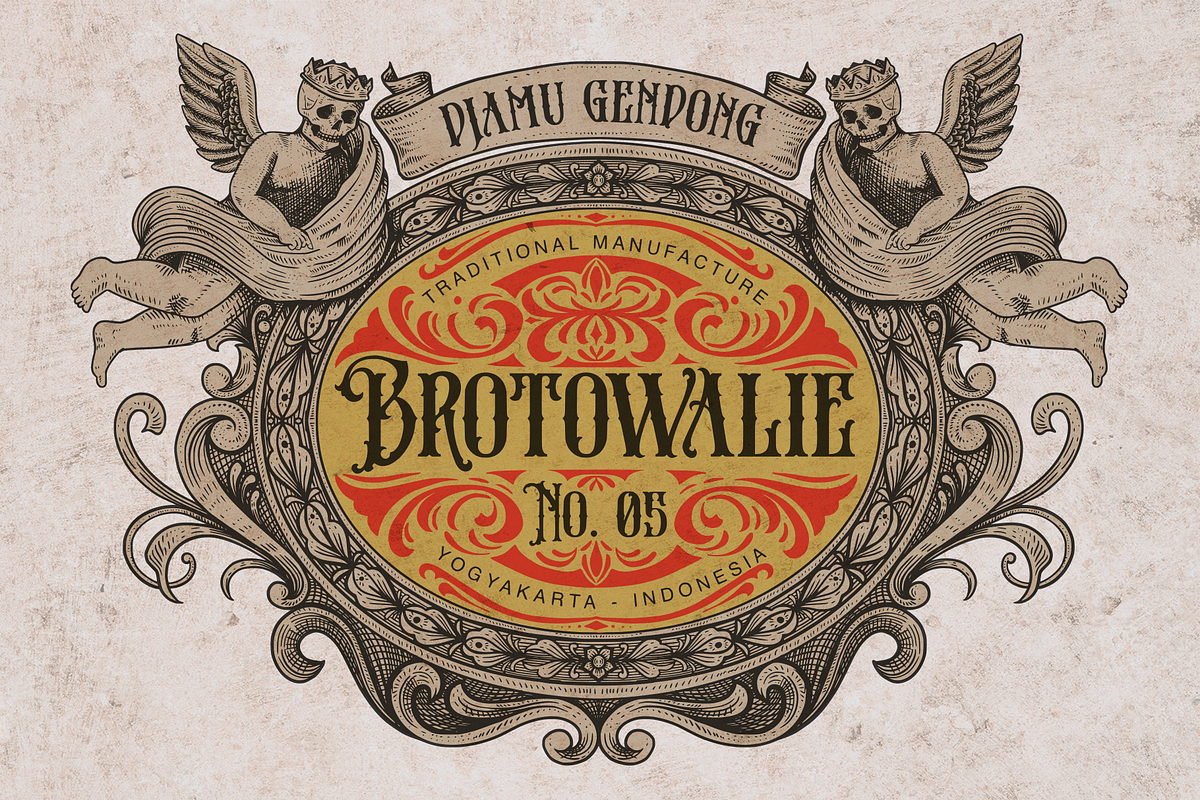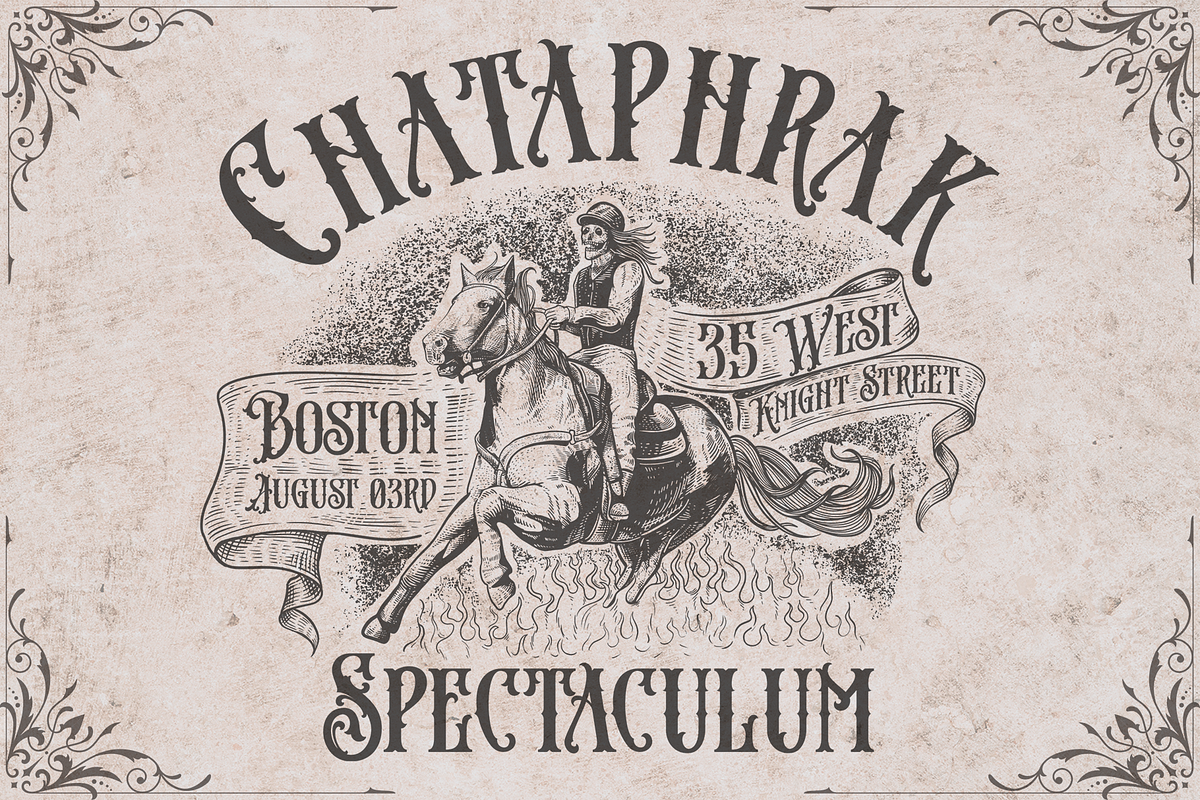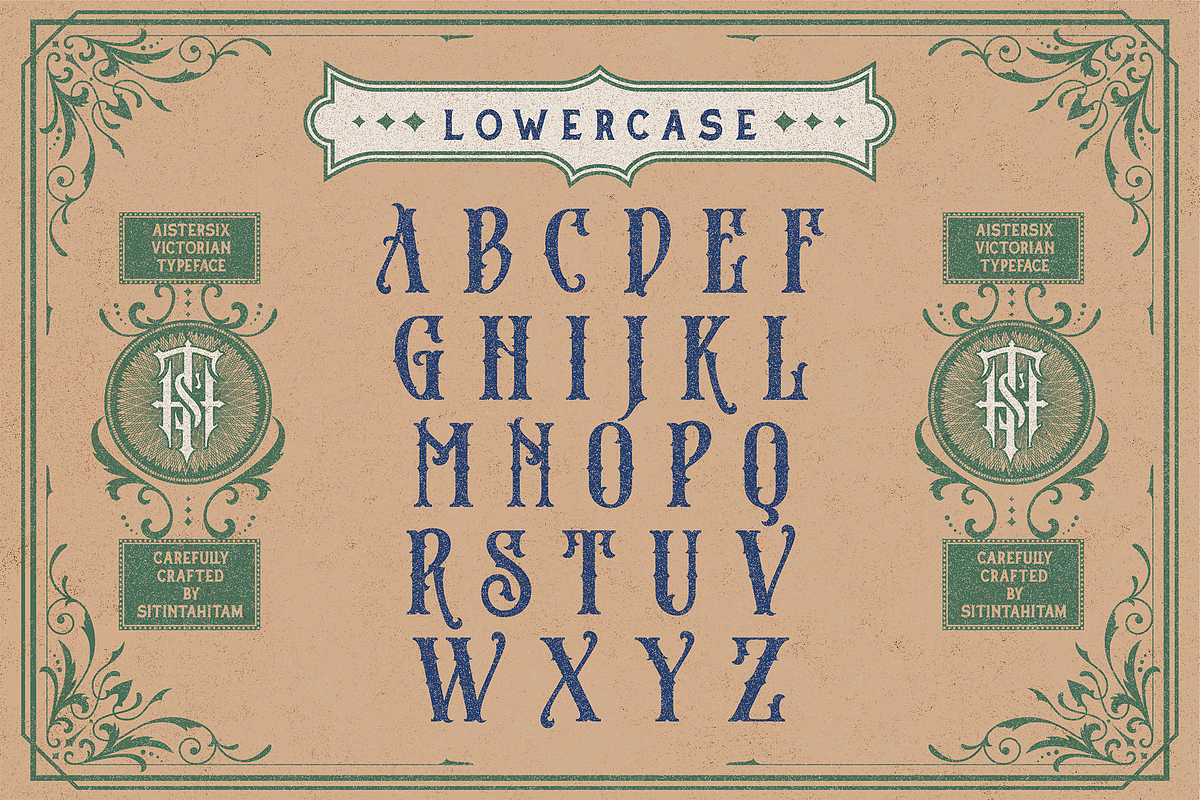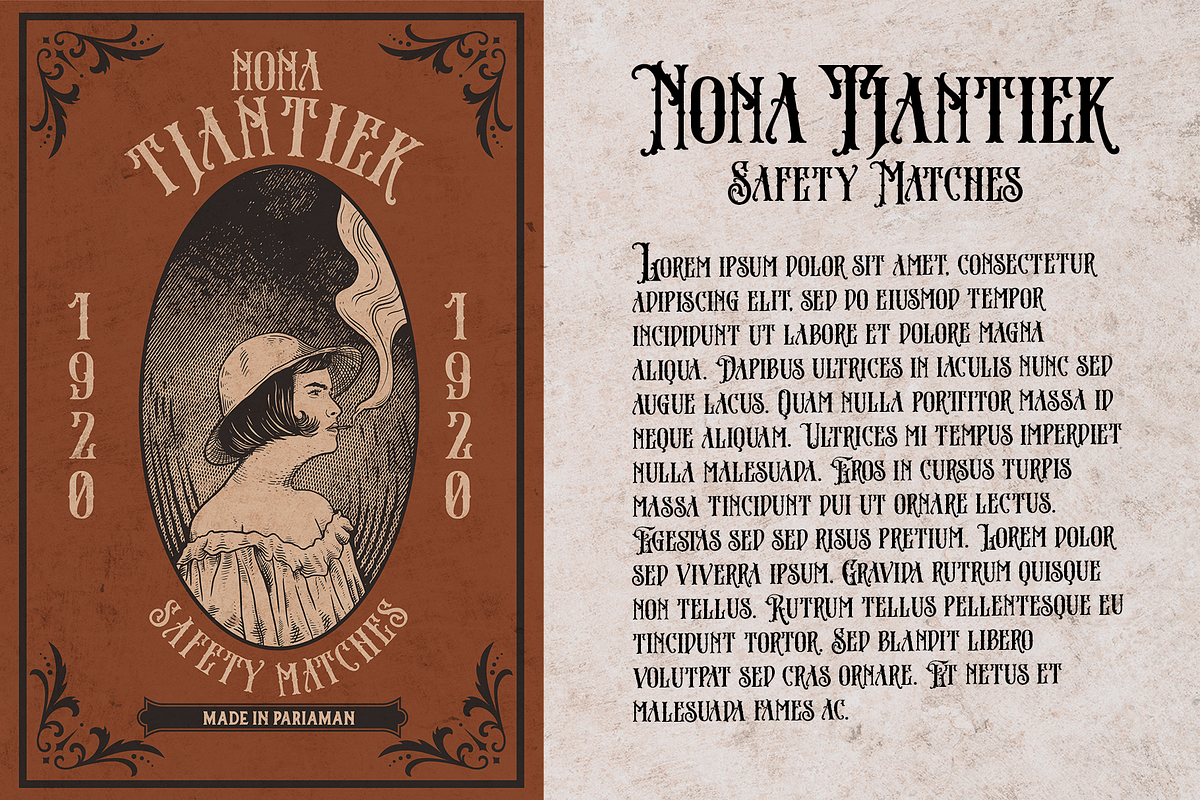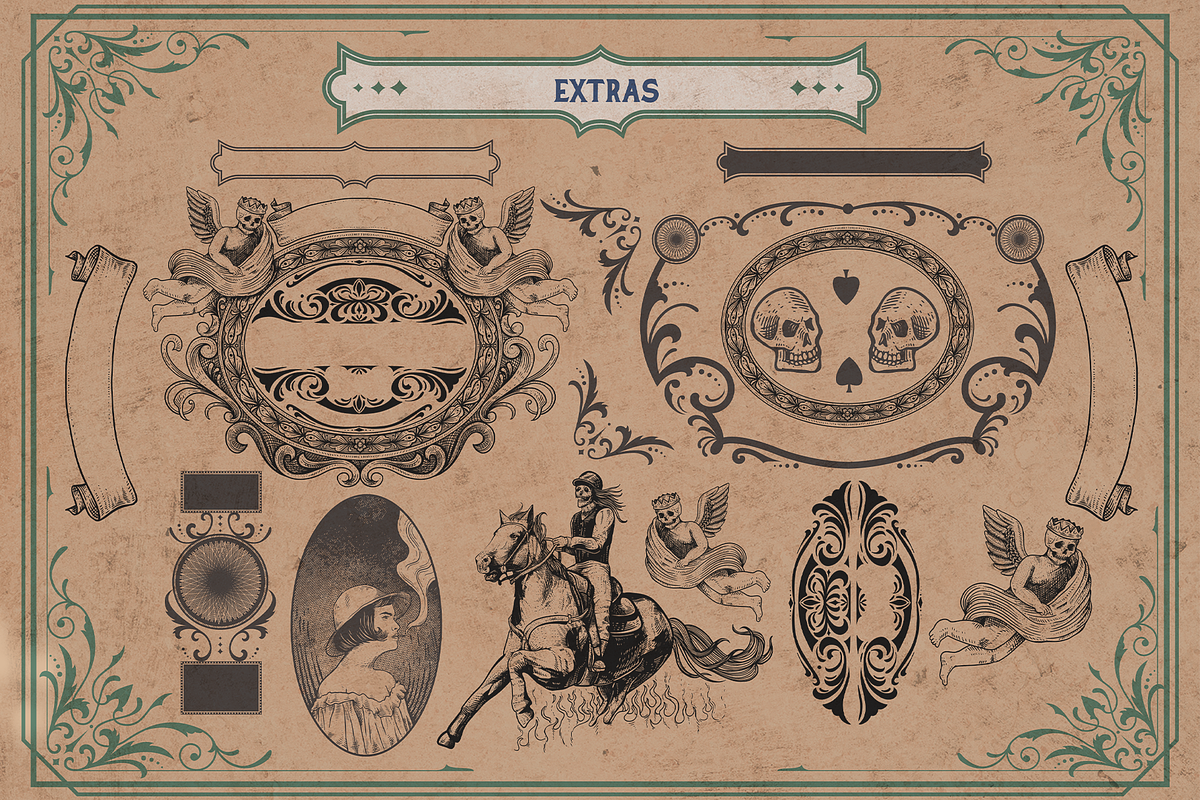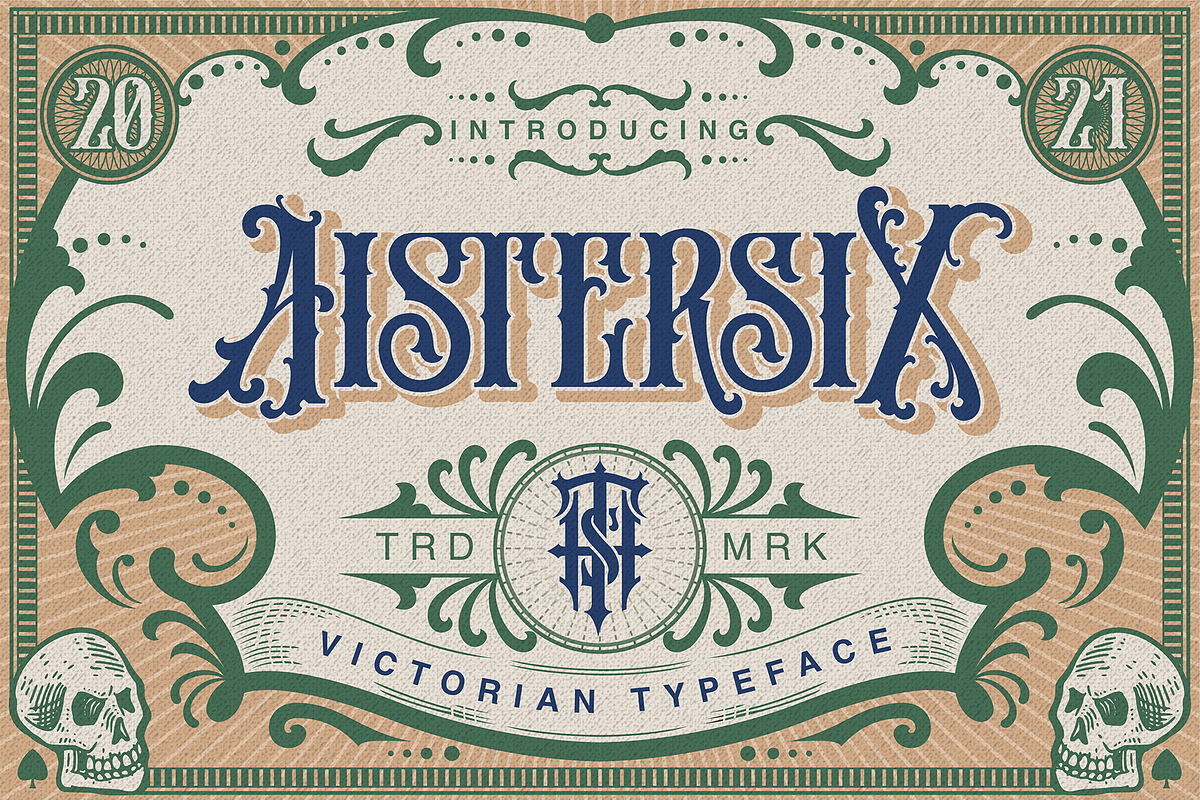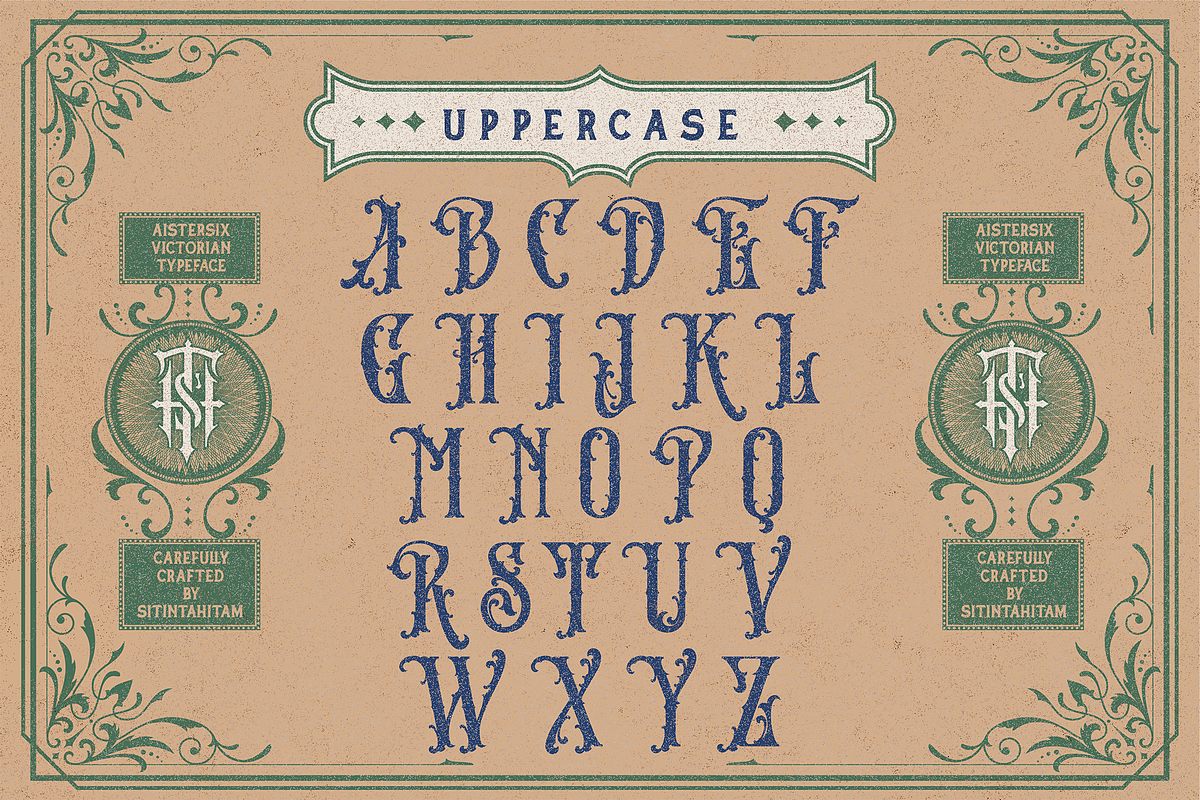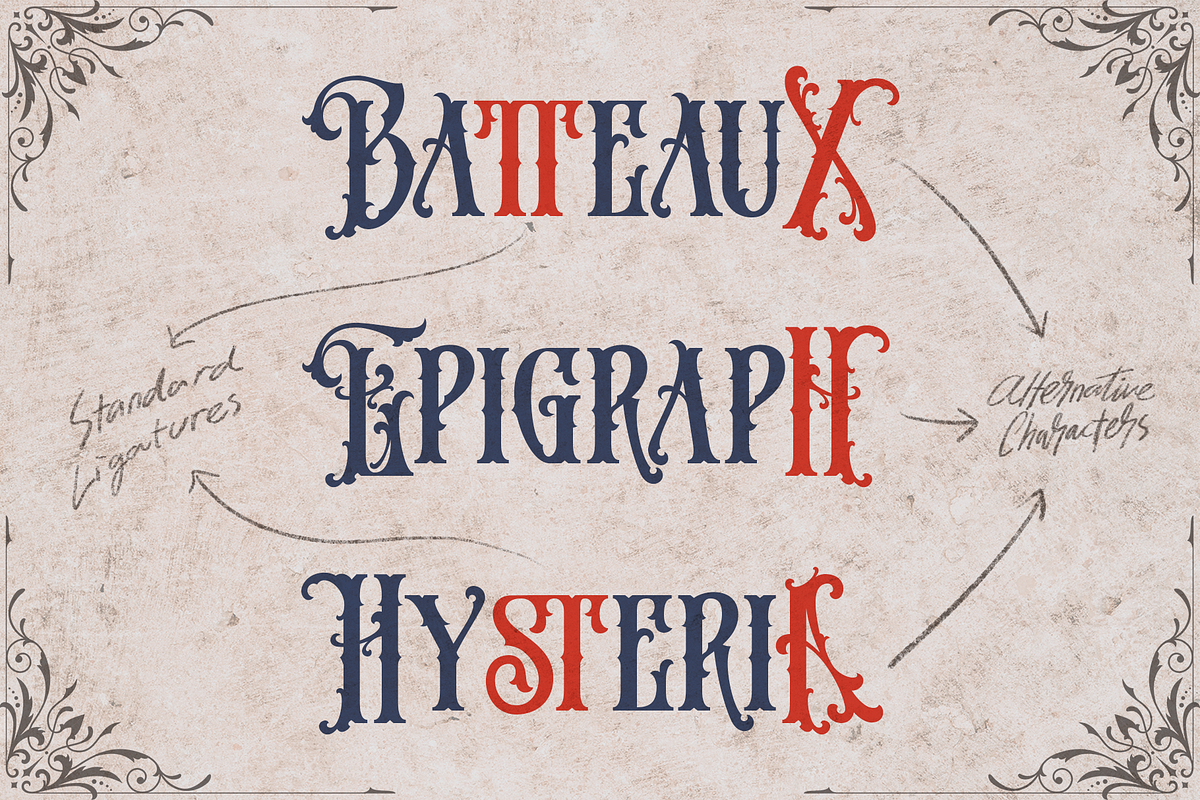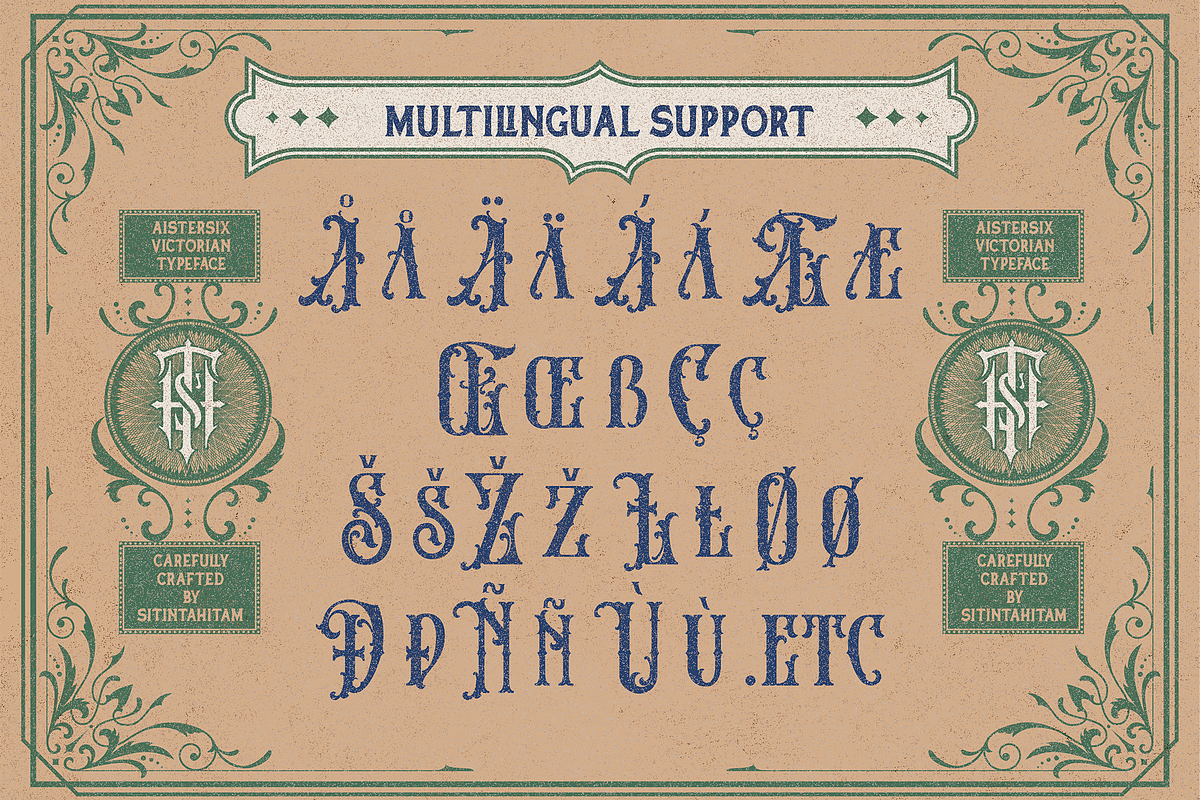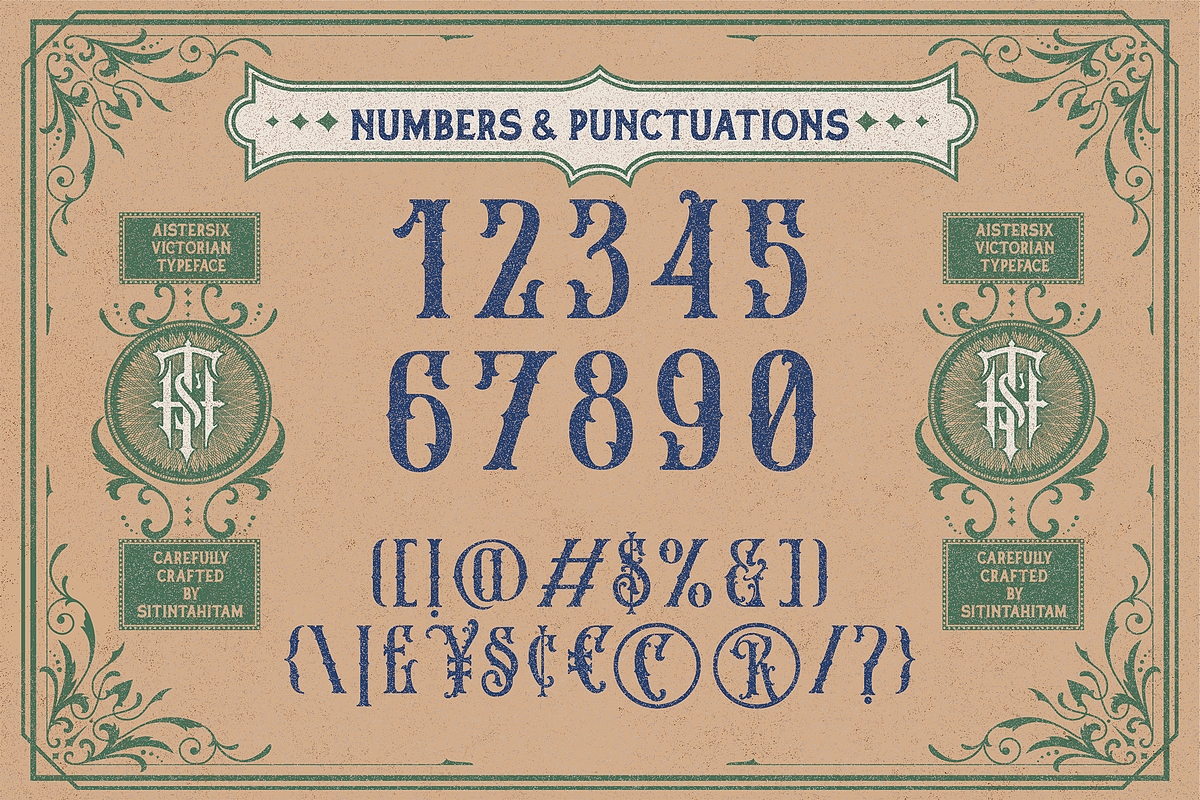
Aistersix
AISTERSIX is a display typeface with victorian style, inspired by natural ornamental forms and ornament borders. This font suitable for your design such as vintage labels, vintage logotype, poster, letterhead etc.
AISTERSIX comes with uppercase, lowercase, number, punctuation, multilingual characters, some ligatures, and alternative characters.